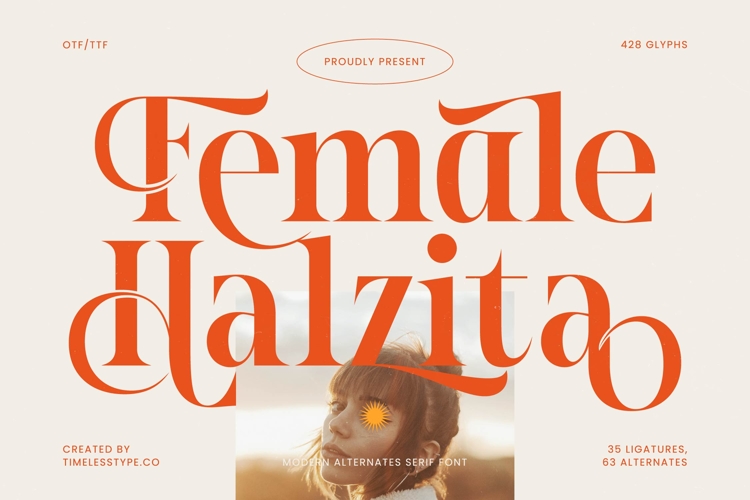
Female Halzita - Modern Alternate Serif
Unlock unparalleled elegance and sophisticated charm for your next design project with Female Halzita - Modern Alternate Serif. This exquisite serif typeface is meticulously crafted to blend classic refinement with a contemporary edge, offering designers an instantly recognizable visual identity. Its distinctive high-contrast strokes and beautifully flowing serifs create a harmonious aesthetic that commands attention, perfect for projects demanding both grace and a bold presence.
Experience the true power of expressive typography through the rich features of Female Halzita - Modern Alternate Serif. Boasting an impressive collection of alternates and ligatures, this font provides unlimited creative possibilities for crafting unique and bespoke headlines or logotypes. With its extensive multilingual support, Female Halzita - Modern Alternate Serif adapts seamlessly across global markets, making it incredibly versatile for international projects.
Elevate your brand with a font designed for impact across diverse platforms. Female Halzita - Modern Alternate Serif is the quintessential choice for luxury branding, high-end packaging, sophisticated editorial design, and memorable advertising campaigns. It is perfect for fashion magazines, elegant wedding invitations, beauty product labels, and any application where a touch of glamour and refined taste is paramount.